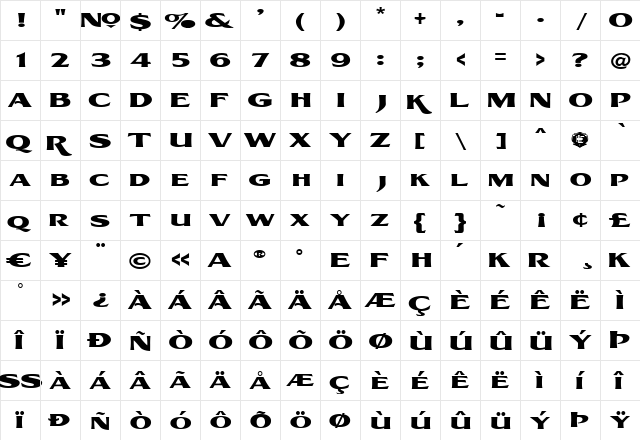
LHF Brewer's Bold Regular
Design Context for LHF Brewer's Bold Typeface
LHF Brewer's Bold offers clean, dependable letterforms without strong stylistic allegiance, making it a practical choice for designers who need flexibility. The heavy weight commands attention and anchors typographic hierarchies.